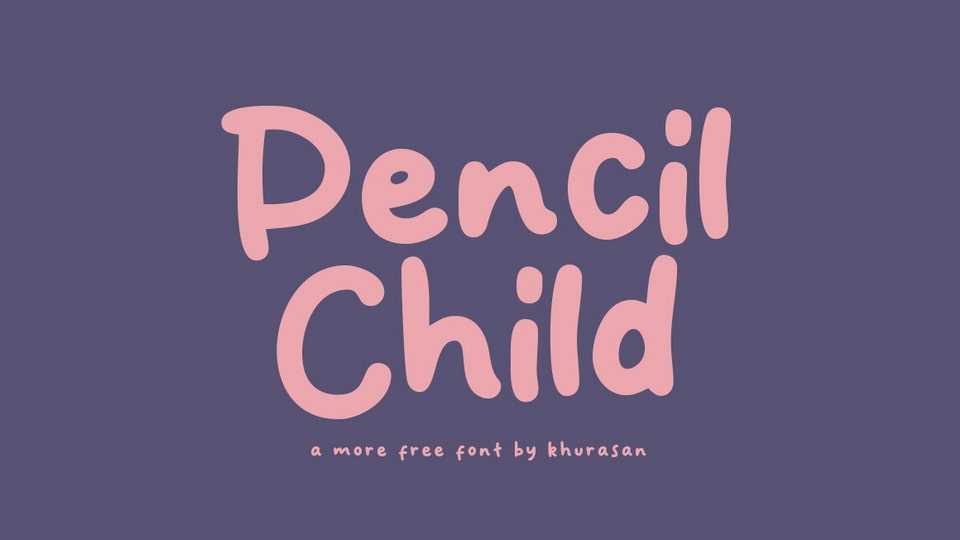
Download Pencil Child font, a simple and natural handwritten typeface. Pencil Child is perfect for posters, logos, magazines, book covers, banners, and many more lovely designs.